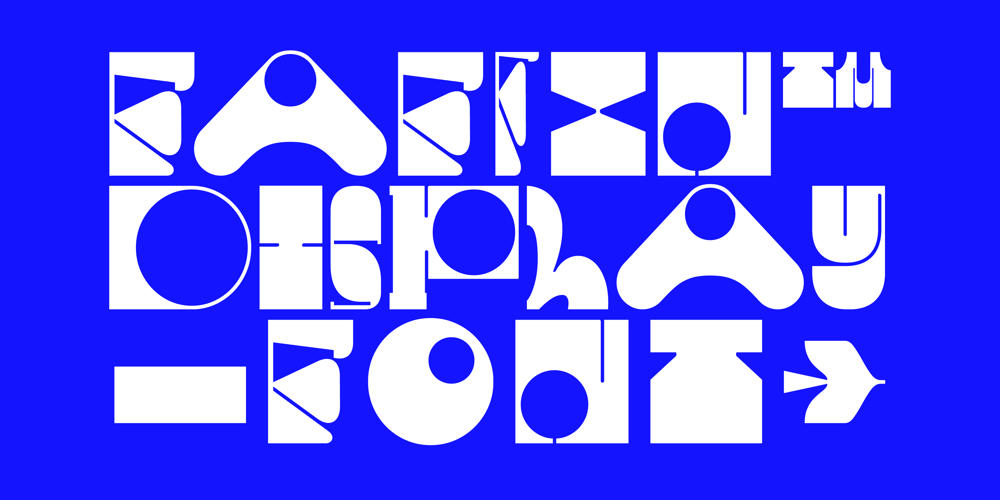
Faffin Font Family was designed by Paul Henry Robb and published by S6 Foundry. Faffin contains 10 styles and family package options. Faffin Variable Display is an experimental font family taking the concept of versatility to the next level as a variable font. From the start, the font family was designed as a variable font that could integrate with a San Serif version of the family, working harmoniously together. Its elegant forms open up an infinite array of possibilities for visual language, presenting a collection of refined forms that expand the horizons of visual communication and unlock boundless creative avenues. Faffin Display works within the Faffin font family. It creates a comprehensive toolkit, designed with 350+ glyphs creating infinite variations of a variable font, and encompasses a myriad of typographic features such as OpenType functionalities.